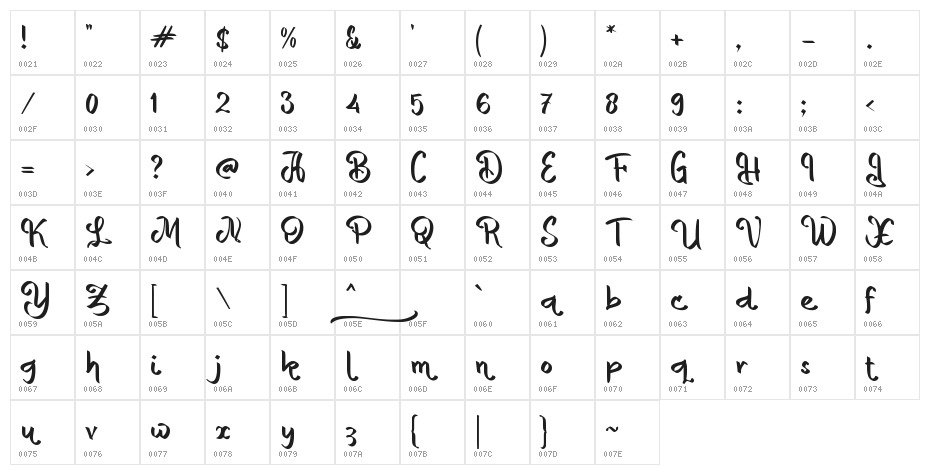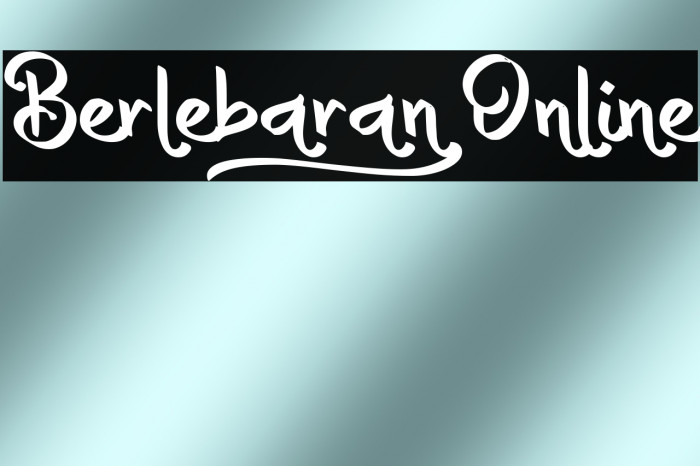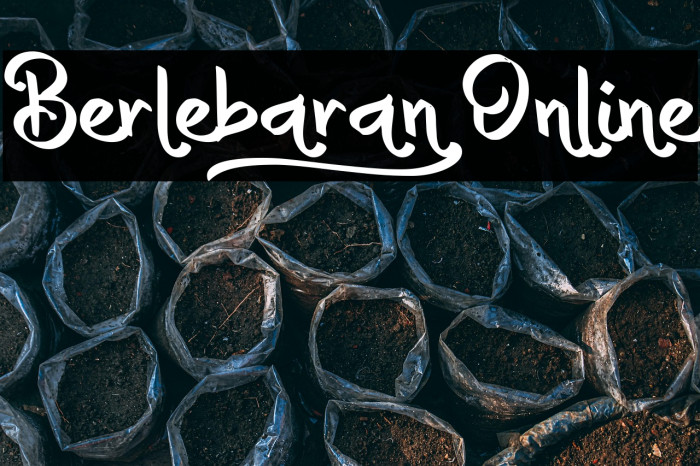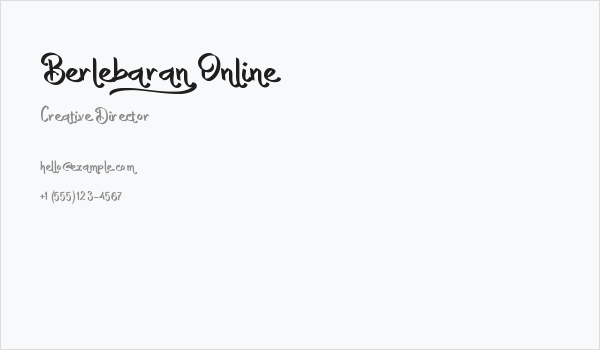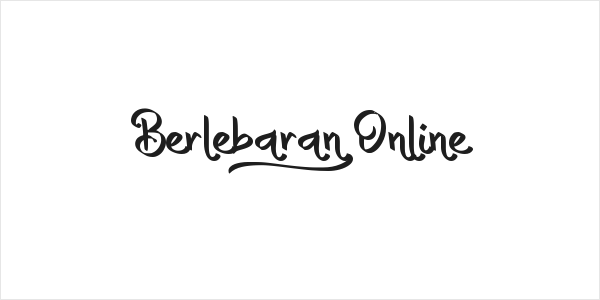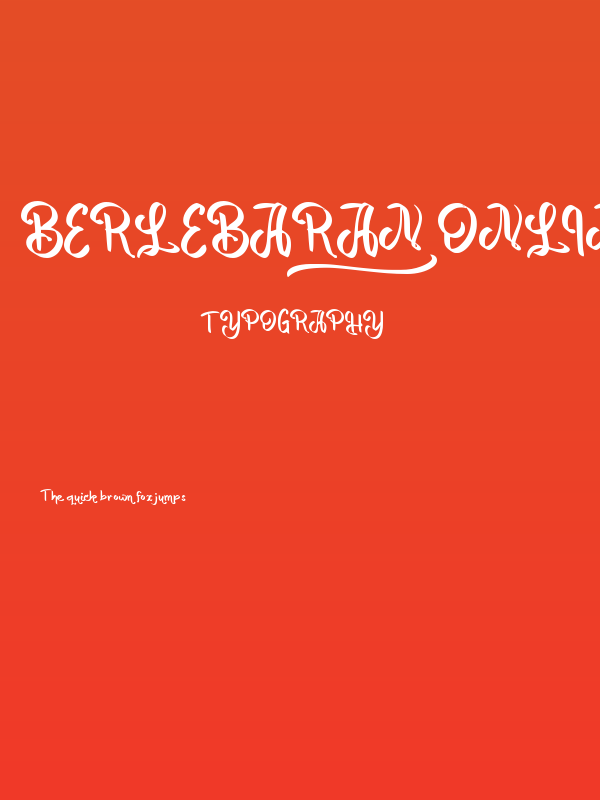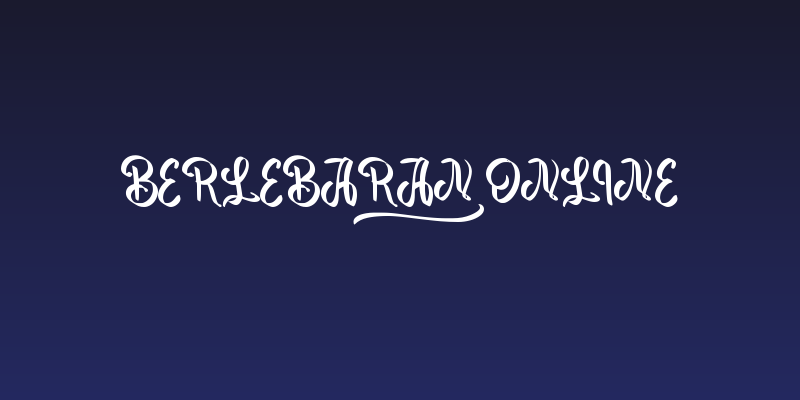
Berlebaran_Online Font
Berlebaran_Online Description
This font features a playful and artistic script style with a hand-drawn appearance. The letters are characterized by their flowing curves and unique, whimsical flair, making each character stand out. The uppercase letters exhibit a bold presence with decorative loops and swirls, while the lowercase letters maintain a consistent fluidity, enhancing the font's overall charm. The numerals and special characters are equally expressive, adding to the font's versatility. This font is ideal for projects that require a touch of creativity and personality, such as invitations, greeting cards, and branding materials.
| Proposed Projects | Ideal for invitations, greeting cards, branding materials, and creative projects. |